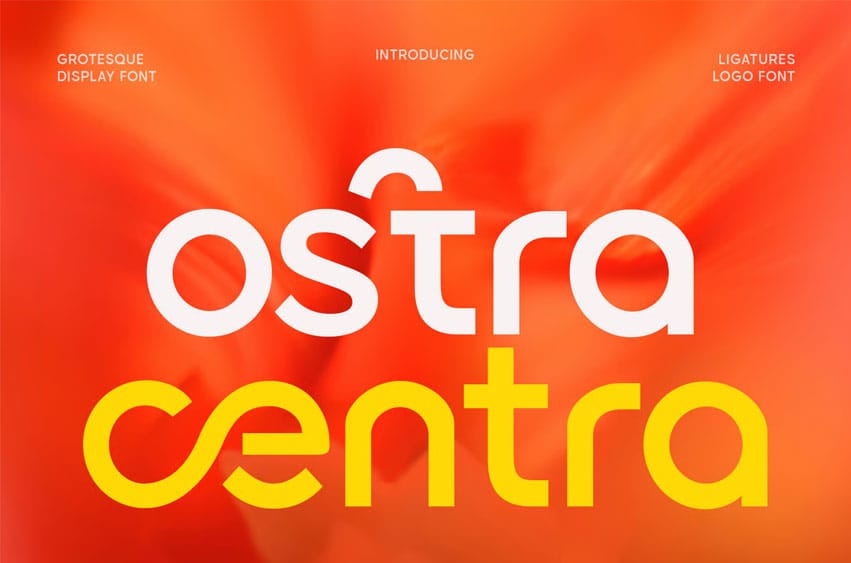
Ostra Centra Font is a fresh, grotesque display font crafted with playful curves, sharp ligatures, and minimalist geometry—perfect for those who want their message to radiate confidence and contemporary energy. From tech startups to fashion brands, this logo-ready font strikes the perfect balance between clean structure and eye-catching character. With its signature rounded terminals and striking alternates, Ostra Centra was designed to make your headlines pop, your packaging stand out, and your designs leave a lasting impression.
Ideal for branding, posters, web design, and logo creation, Ostra Centra offers versatile uppercase and lowercase forms, multilingual support, and unique ligatures that add a custom feel with zero effort. Whether you’re building a bold visual identity or seeking a font with flair for editorial layouts, this typeface delivers both style and substance. Ready to elevate your typography game? Download Ostra Centra now and bring a fresh pulse to your creative projects.